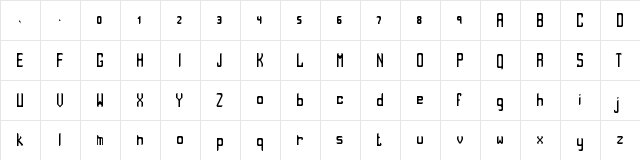
YaFuture Condensed Regular
Design Context for YaFuture Condensed Typeface
YaFuture Condensed channels digital-age aesthetics through its sharp, structured letterforms — ideal for brands that want to signal innovation. Its narrow stance lets it pack a punch even in space-constrained designs.
Pro Tip: Try YaFuture Condensed with generous letter-spacing in UI labels and navigation — the geometric forms benefit from room to breathe.